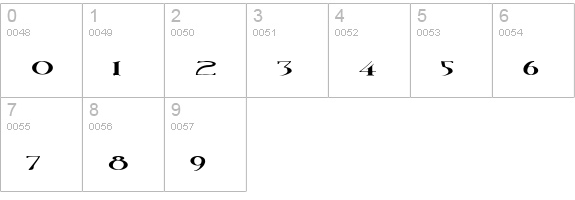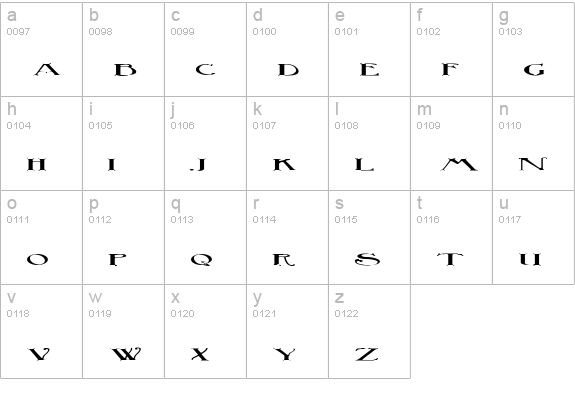
BirminghamSquat Font Details
BirminghamSquat font is a bold and modern typeface that exudes confidence and style. With its strong, squat letterforms and clean lines, this font is perfect for making a statement in your designs. Whether you're creating a striking headline or adding a touch of edginess to your branding, BirminghamSquat has got you covered. The best part? BirminghamSquat font is completely free to download at FontsMarket.com. Yes, you read that right - absolutely free! So go ahead and unleash your creativity with this versatile and eye-catching font. Download BirminghamSquat today and take your designs to the next level.